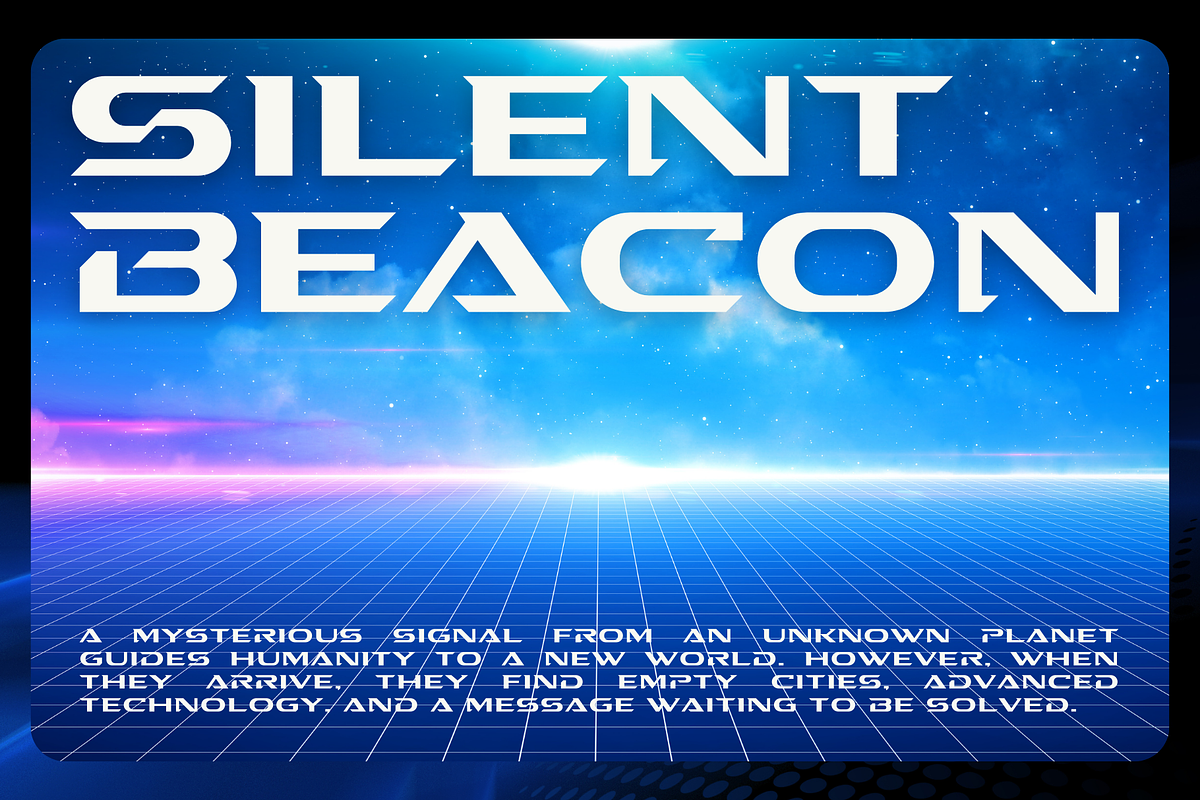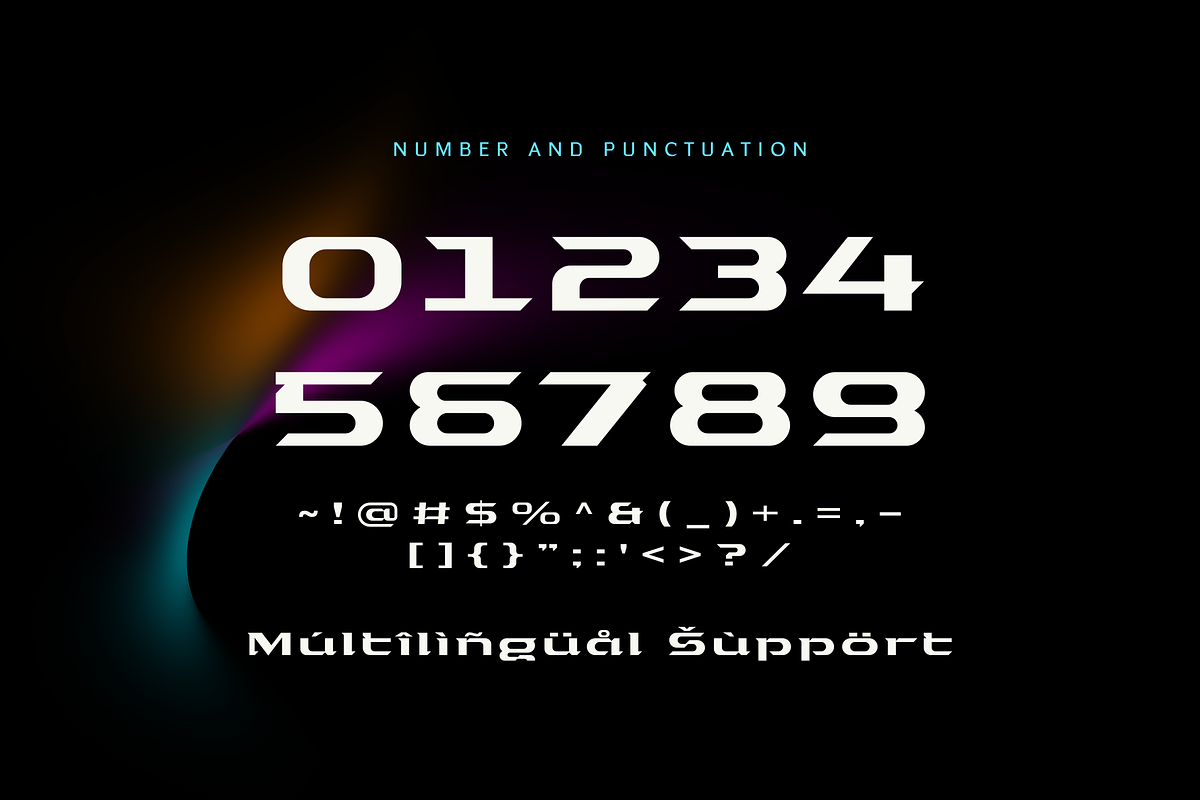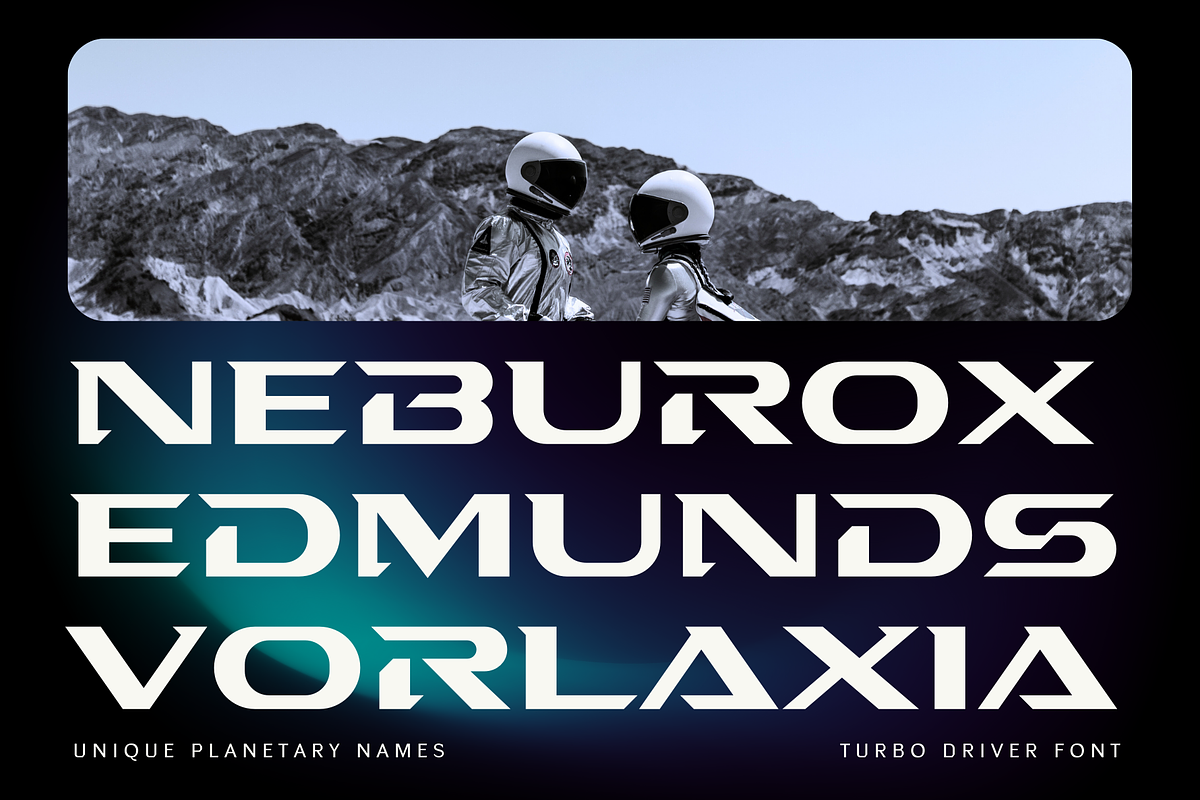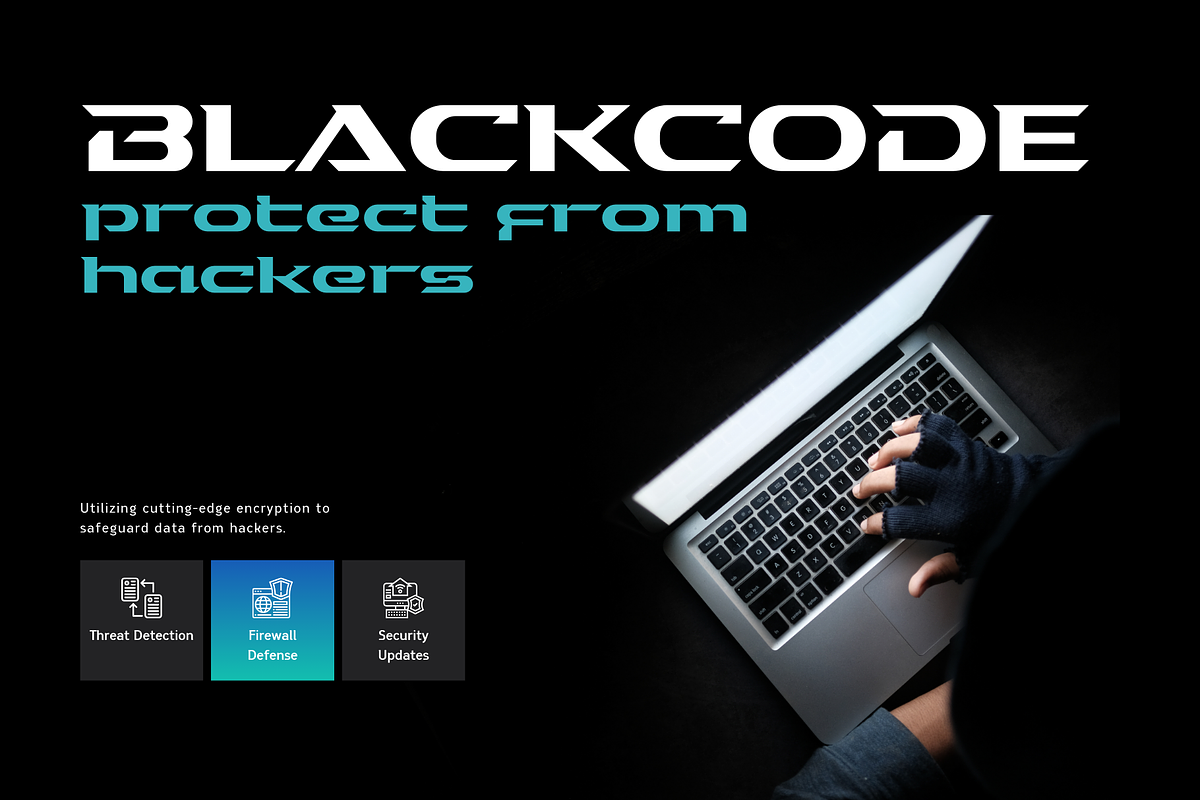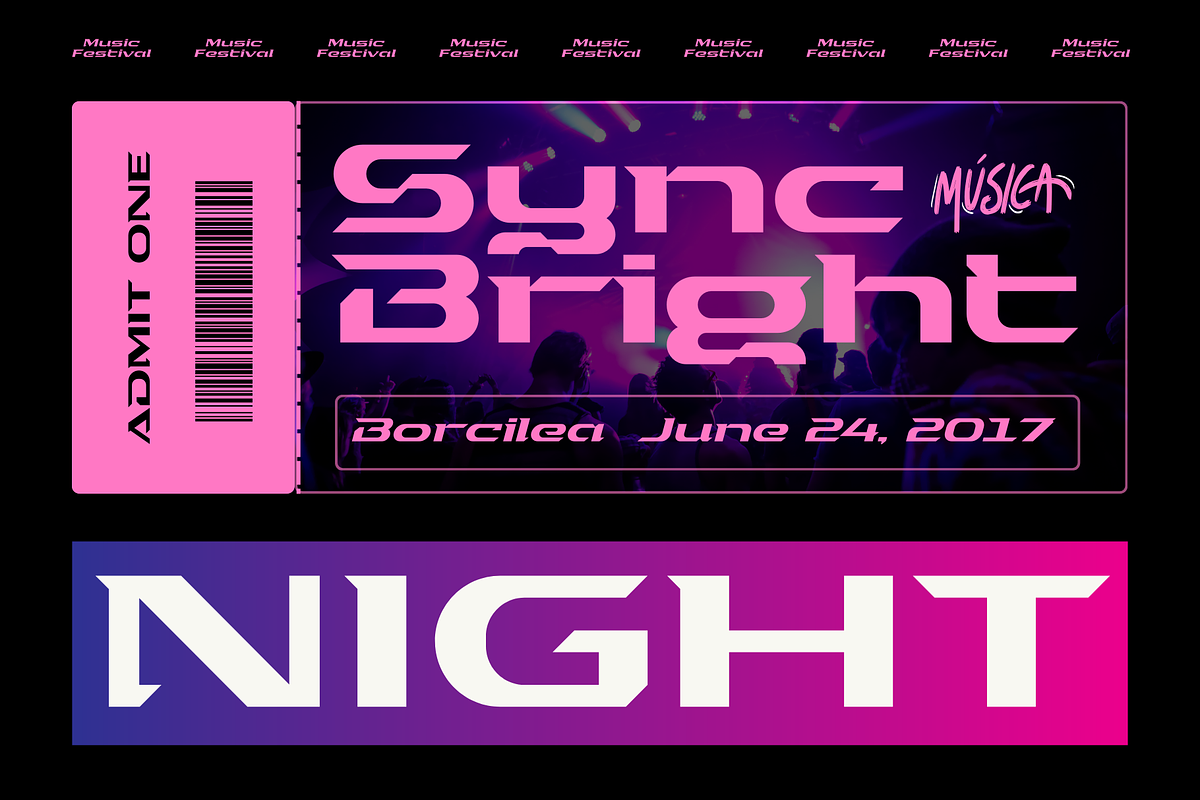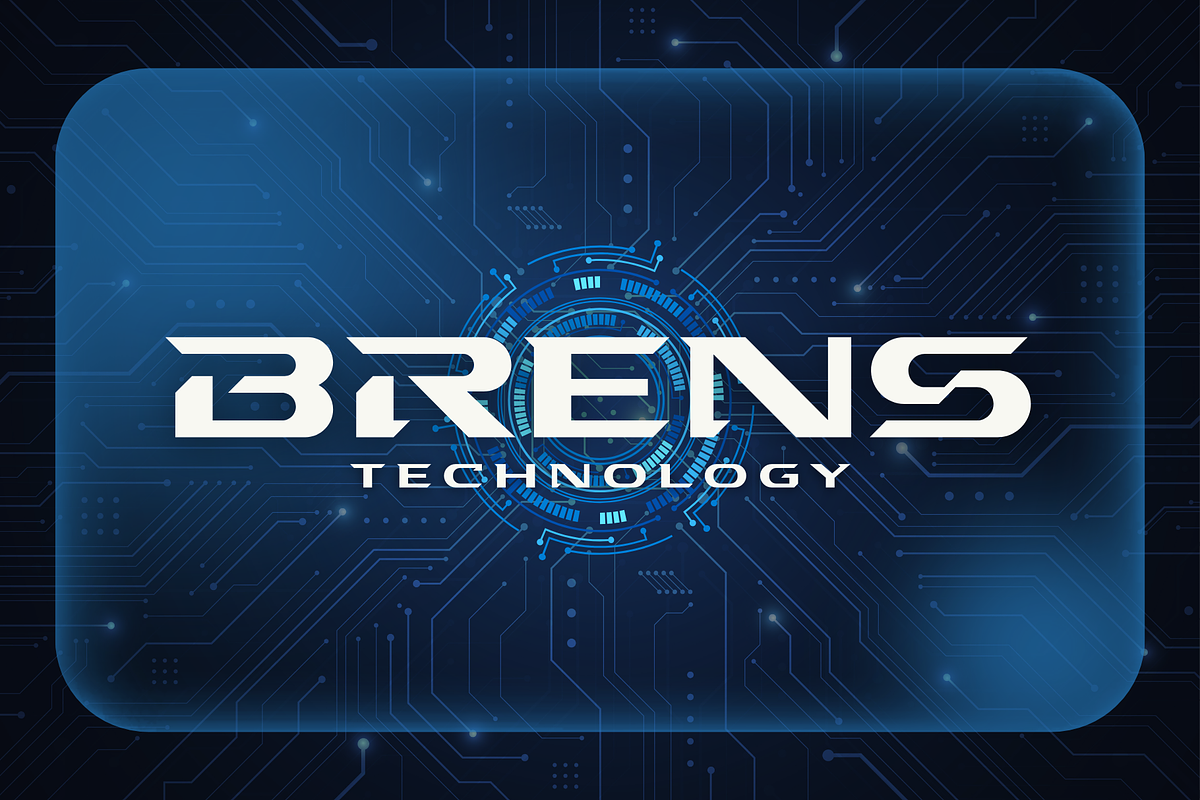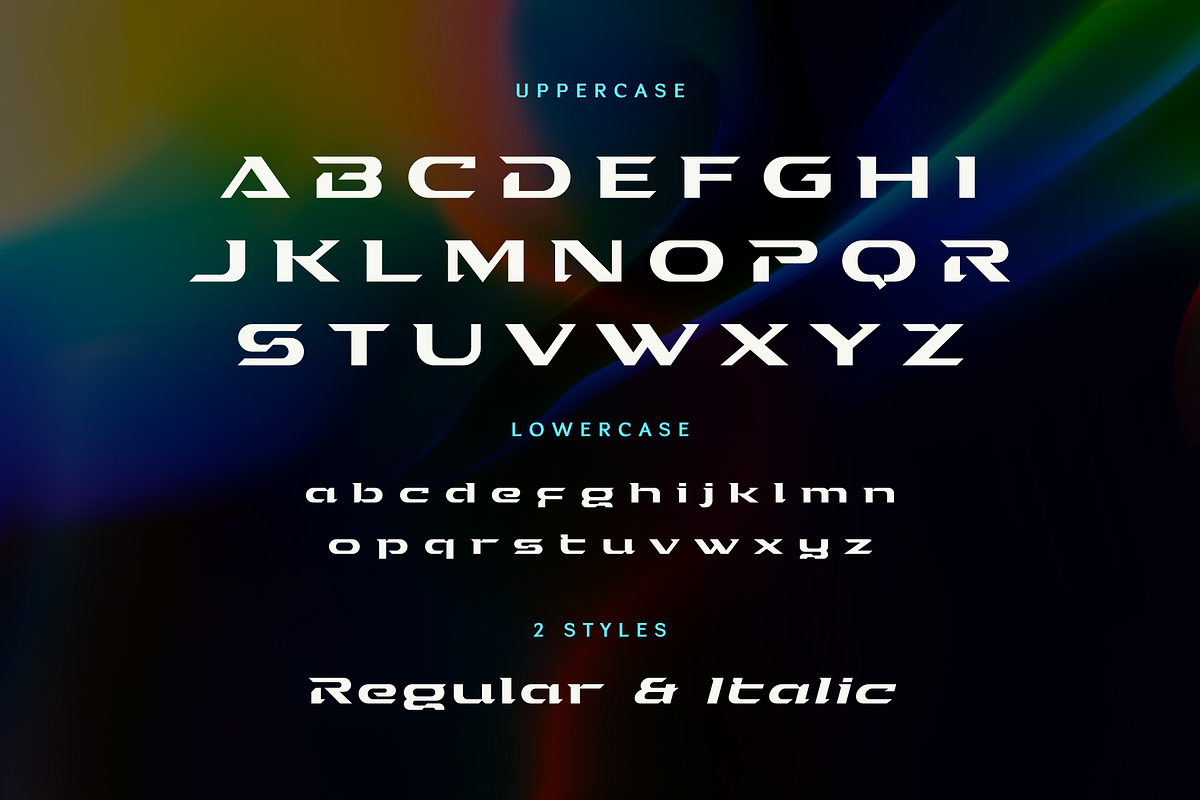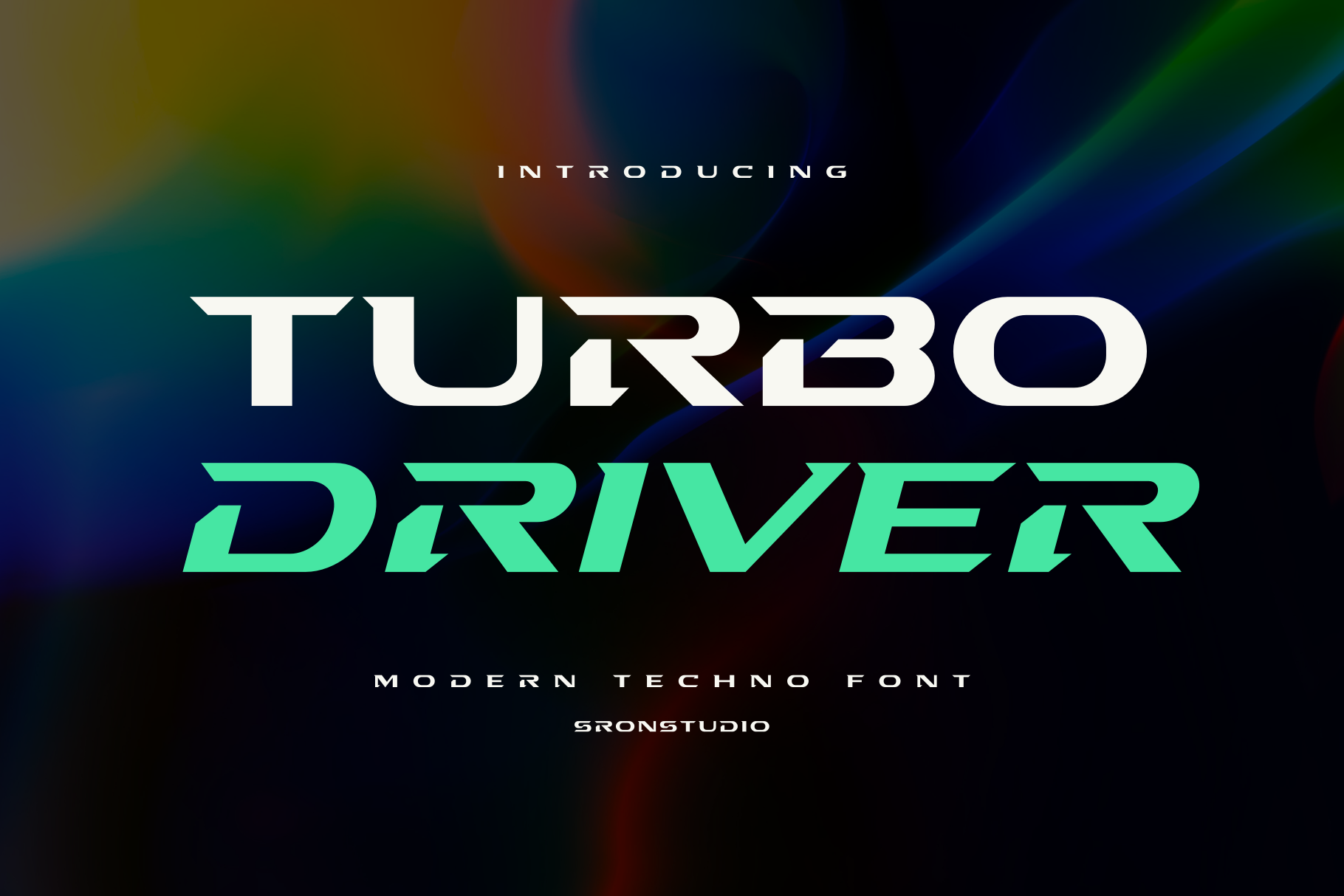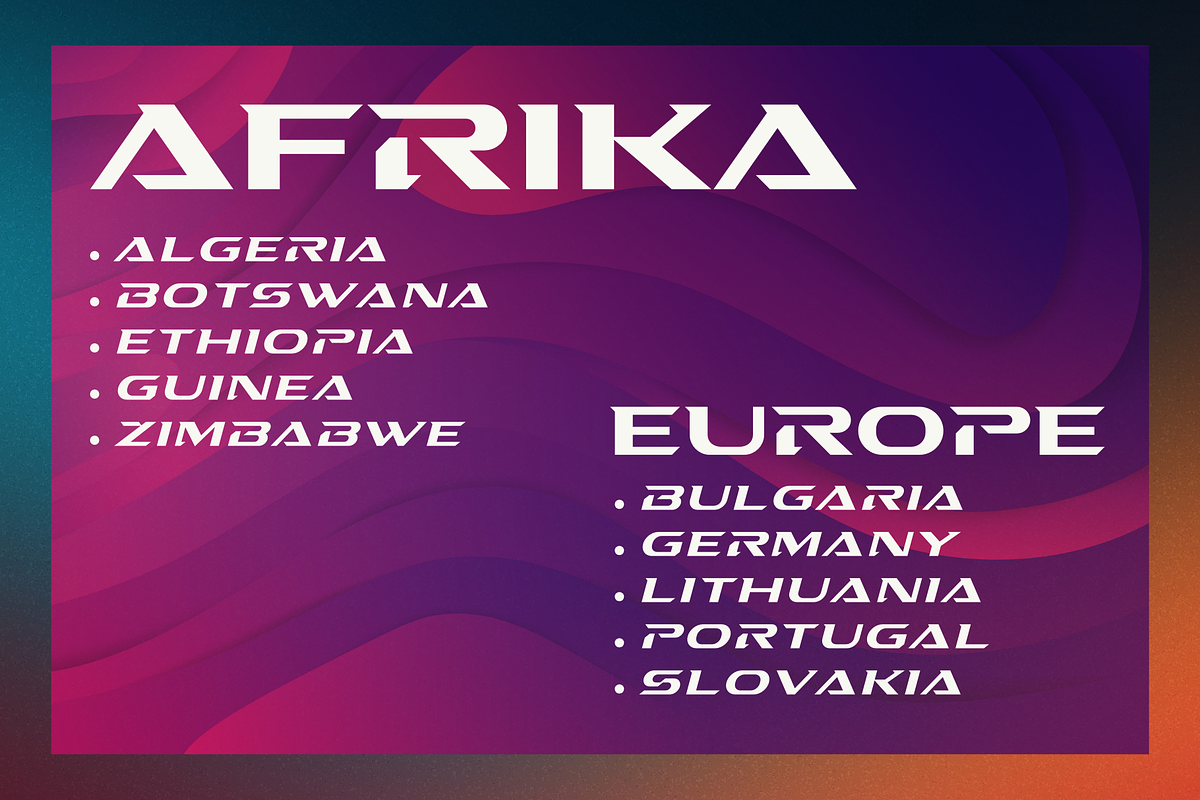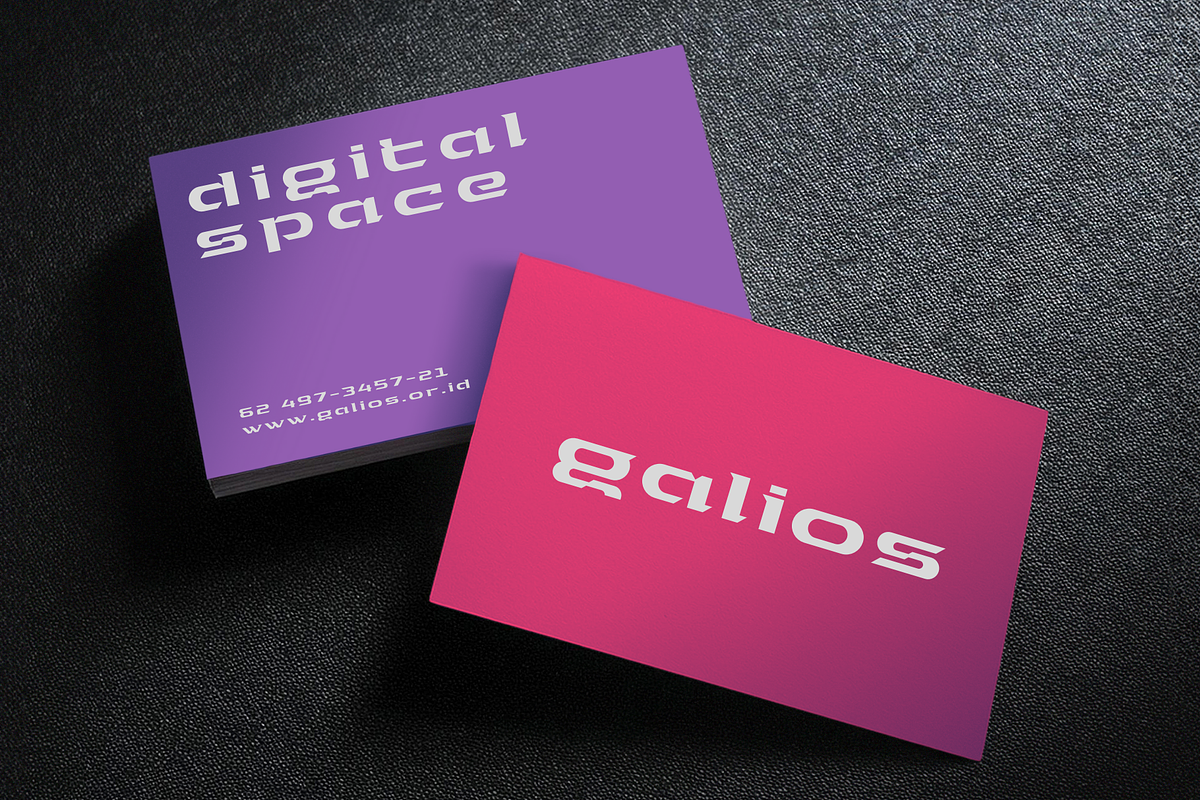
Turbo Driver - Sporty Tech Font
Turbo Driver is a high-energy tech sporty font designed for speed and precision. With its sharp edges and futuristic style, this font is perfect for racing themes, sports branding, esports logos, automotive designs, and high-tech projects. Turbo Driver delivers a bold, dynamic look that embodies motion and power, making it an excellent choice for any design that needs a fast and modern aesthetic.
- Regular & Italic styles
- Numerals & punctuation